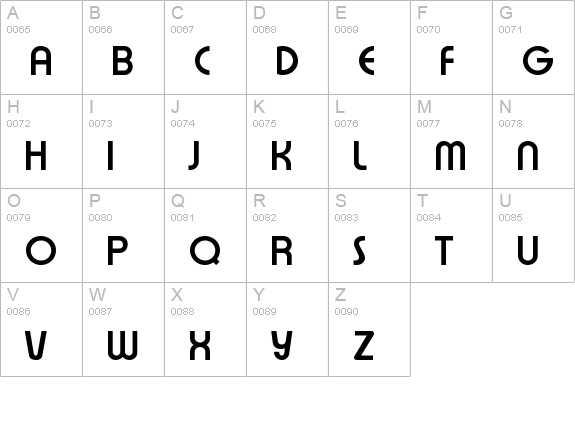
Crandall Regular is the standard, neutral variant in the Crandall typeface family \xE2\x80\x94 well suited to general body text, paragraphs, and standard typographic work.
Crandall Regular font is a versatile and modern typeface that exudes elegance and sophistication. With its clean lines and timeless appeal, this font is perfect for a wide range of design projects, from branding to editorial design. The classic yet contemporary look of Crandall Regular makes it a great choice for both print and digital applications. What's even better is that Crandall Regular font is completely free to download at FontsMarket.com. You can easily access this high-quality font and enhance your designs with its refined aesthetic. Whether you're working on a logo, packaging, or website, Crandall Regular is sure to elevate your project with its effortless charm and readability. Don't miss out on the opportunity to elevate your design work with Crandall Regular font. Download it for free today and see the difference it can make in your creative endeavors.